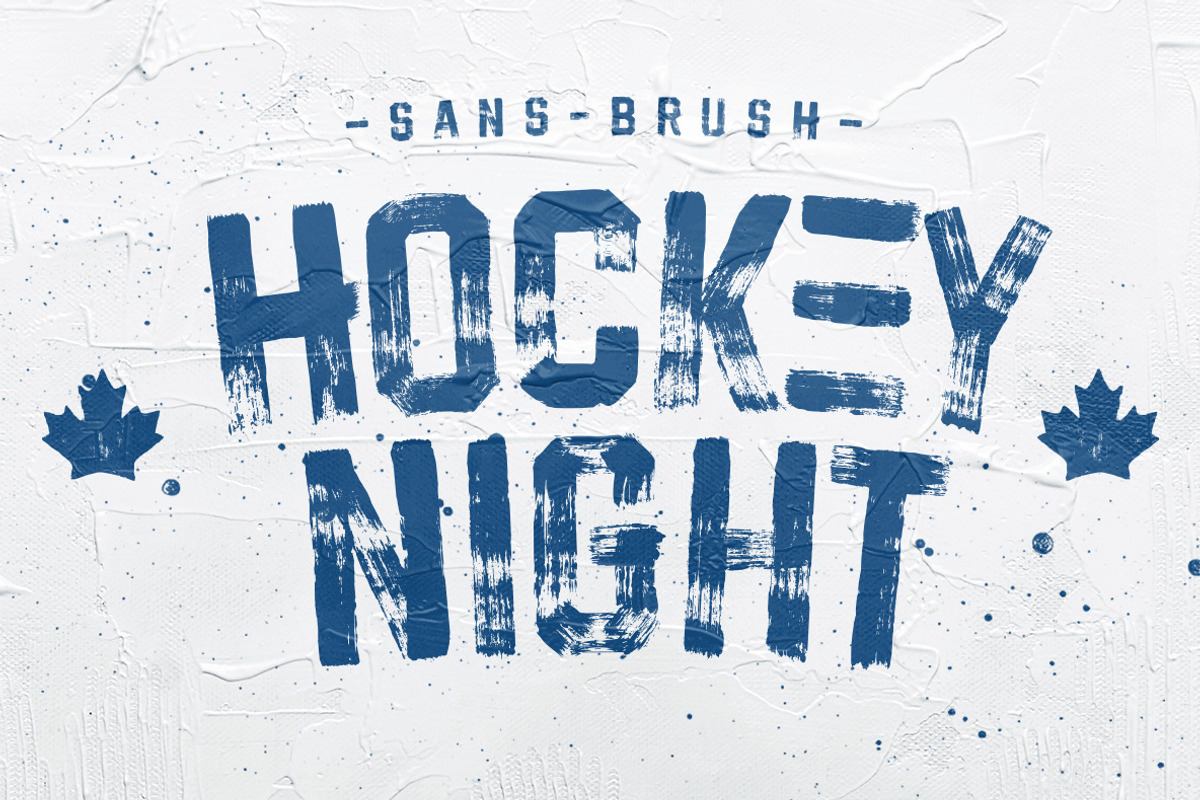
You must purchase this font for commercial use. However, you can download Hockeynight Sans Brush Free Download for testing purposes. Hockeynight Sans Brush is a bold and energetic sans-serif font that brings a hand-painted brush style to your designs. With its rough, expressive strokes and modern appearance, this font is perfect for sports branding, posters, event promotions, logos, and social media graphics that need a dynamic, high-energy vibe.
The font’s brush-inspired texture gives it a unique and personal touch, making it ideal for creative projects that require a sense of movement and excitement. Whether you're designing for a sports event, a casual brand, or creating promotional content, Hockeynight Sans Brush adds a lively, hand-crafted feel to your typography.